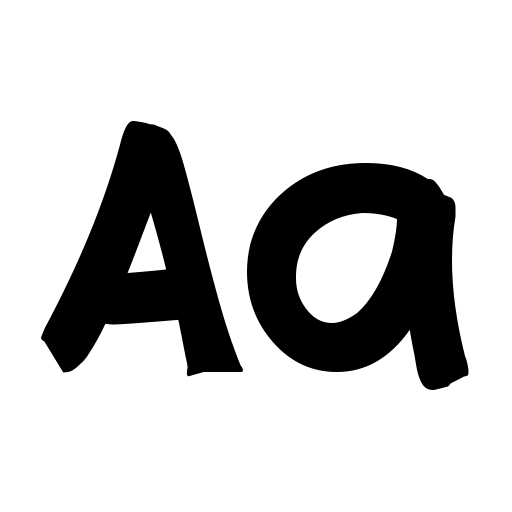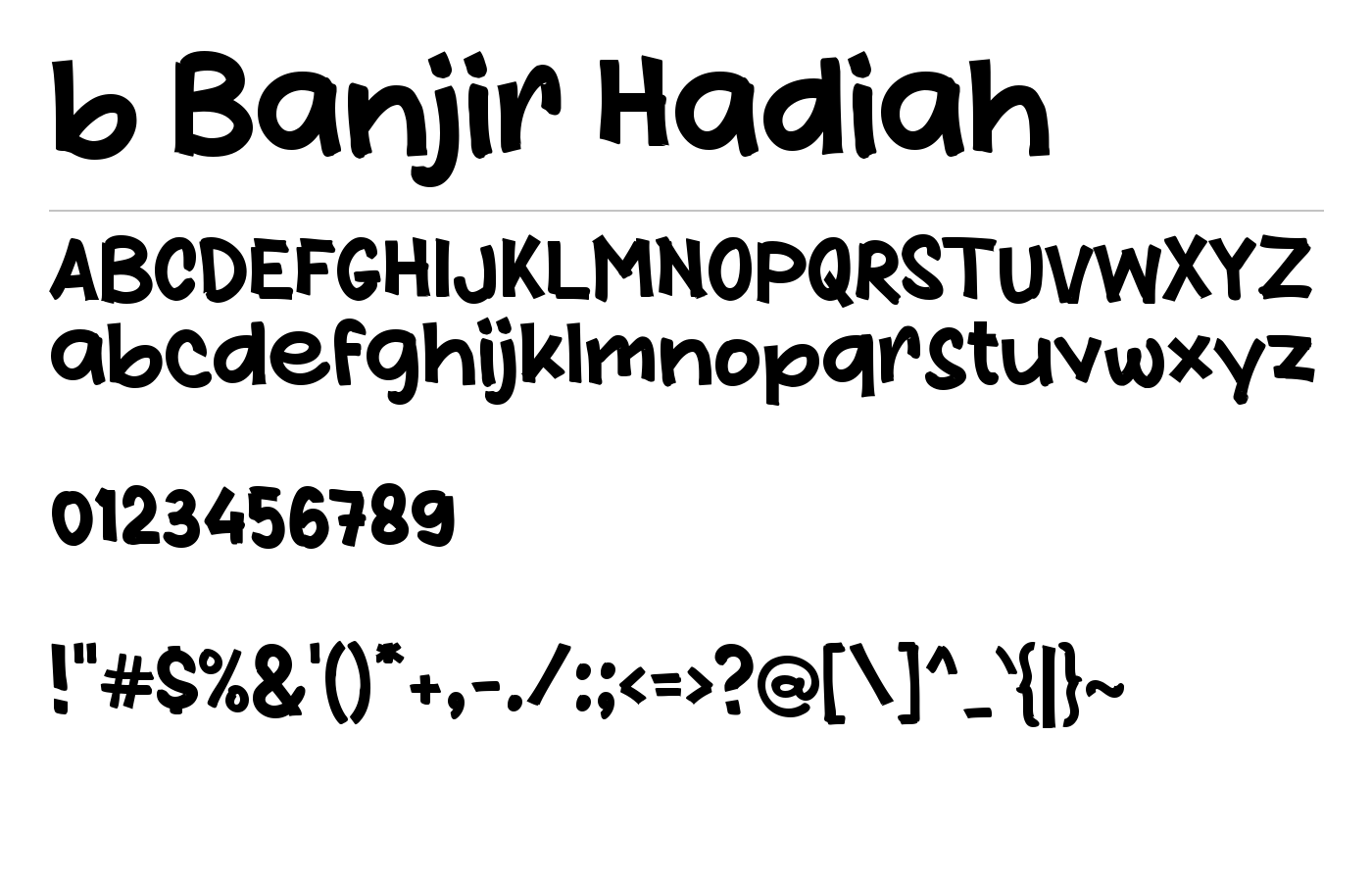
Banjir Hadiah is a playful, casual sans serif font with a hand-drawn feel, characterized by its slightly irregular, rounded letterforms and moderate x-height. Its bold weight and cozy, informal style make it perfect for creative projects, children's books, fun branding, and friendly headlines where warmth and approachability are desired. This font’s energetic and quirky personality adds charm to any design looking to convey lightheartedness and creativity.
b Banjir Hadiah Font
About b Banjir Hadiah Font